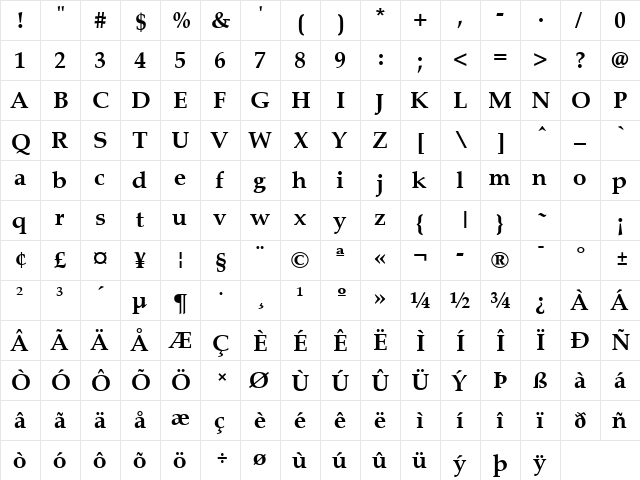
Portugal Bold
Design Context for Portugal Typeface
Portugal is a composed and adaptable typeface that performs quietly and consistently across a wide range of design contexts. Its bold stroke weight gives it real presence on the page.
Pro Tip: Pair Portugal with a font of contrasting weight or personality to build a more expressive typographic hierarchy.